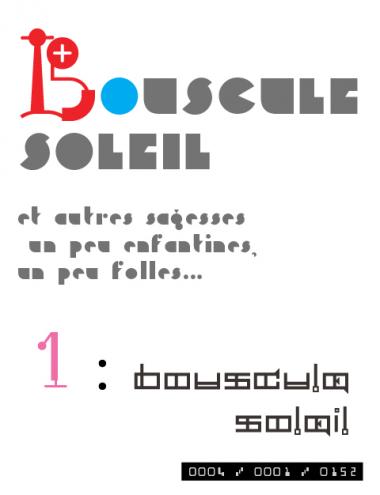
Forixx
Aiseft
a redone Ancients font.
I used your splendid Forixx font (I prefer the awsome lowcases, the uppercases don't work as much in my opinion) in the layout of a title page of my Catalogue Raisonné (see sample)